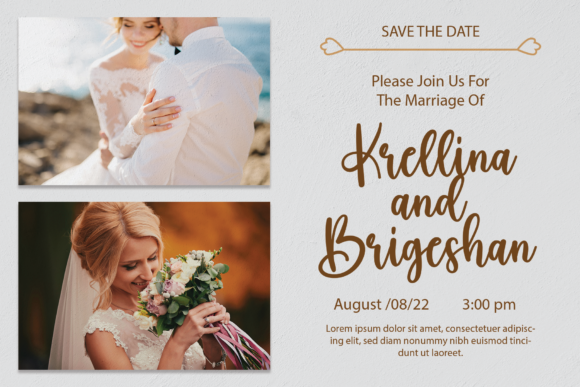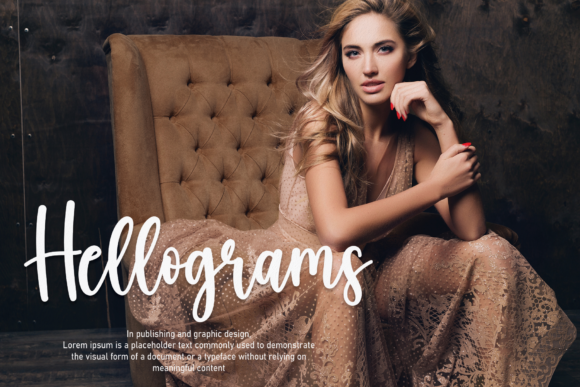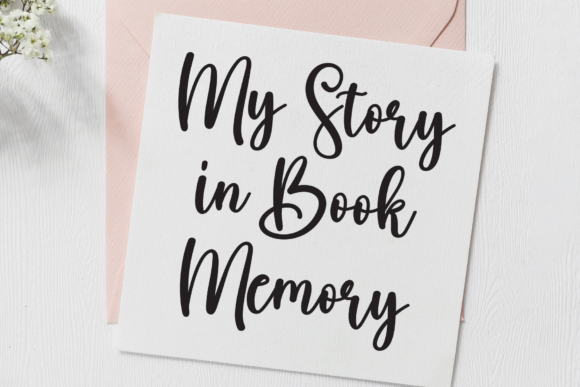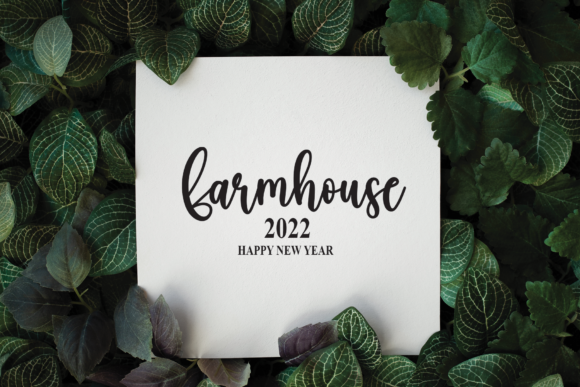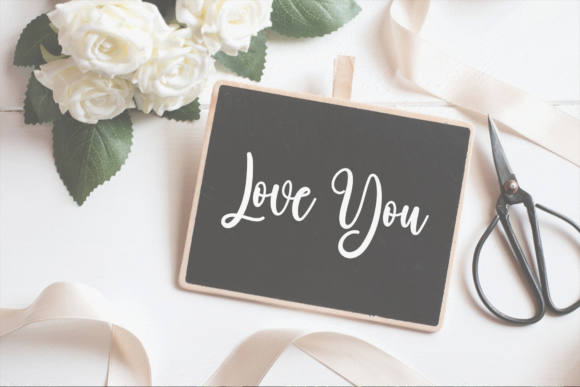
Embracing the Free-Spirited Charm of Boho Font
Have you ever found yourself scribbling down a quote from your favorite poet, or jotting down a list of your favorite travel destinations, in a notebook with a pen that flows like a river? That’s the magic of creating something with your own hand, and the joy of bringing a personal touch to your design work.
Enter the Boho Font, a sweet and cursive handwritten font that captures the essence of that free-spirited charm. This gentle font is designed to add a touch of joy and romance to any design project, making it a valuable asset for designers looking to infuse their work with a sense of personality and whimsy.
With the Boho Font, you’ll be able to create designs that feel like they’re straight from the heart, and that’s precisely what makes it so valuable for designers who want to stand out from the crowd.
Key Features of Boho Font
- Unique Characteristics: The font’s bohemian style features intricate, hand-drawn designs, swashes, and flourishes, giving it a unique and artistic feel.
Boho Font Review
At first glance, Boho Font appears to be a stunning, elegant script font, perfect for creating a bohemian or vintage vibe in any design project. ✨ I particularly appreciate the intricate details and fluid lines that give the font a unique, handmade feel. The font also features a range of swashes and ligatures that add to its charm.
However, as I delved deeper into the font, I encountered a few limitations. ⚠️ Firstly, the font’s complexity may make it challenging to pair with other fonts, as the intricate details may clash with simpler designs. Additionally, the font’s lack of support for certain languages may limit its usability in multilingual projects.
- ✨ Elegant, intricate details and fluid lines
- ✨ Range of swashes and ligatures for added charm
- ⚠️ May be challenging to pair with other fonts
- ⚠️ Limited support for certain languages
Overall, Boho Font is a beautiful and unique font that can add a touch of elegance to any design project. While it may have some limitations, its strengths make it a great choice for designers looking to create a bohemian or vintage vibe.
Boho Font works well for titles, headings, and quotes in Canva designs.
Boho Font is ideal for creating unique and eye-catching text elements in Adobe designs.
Boho Font works well for titles, headings, and body text in PowerPoint and Word documents.
Getting the Most Out of Boho Font
For the best results, pair Boho Font with a clean and minimalist design aesthetic.
Experiment with different font sizes, colors, and styles to create a unique and eye-catching look.
Use Boho Font for titles, headings, and quotes to add a touch of whimsy and personality to your designs.
Boho Font is perfect for:
- Travel and adventure designs
- Wellness and self-care branding
- Food and beverage